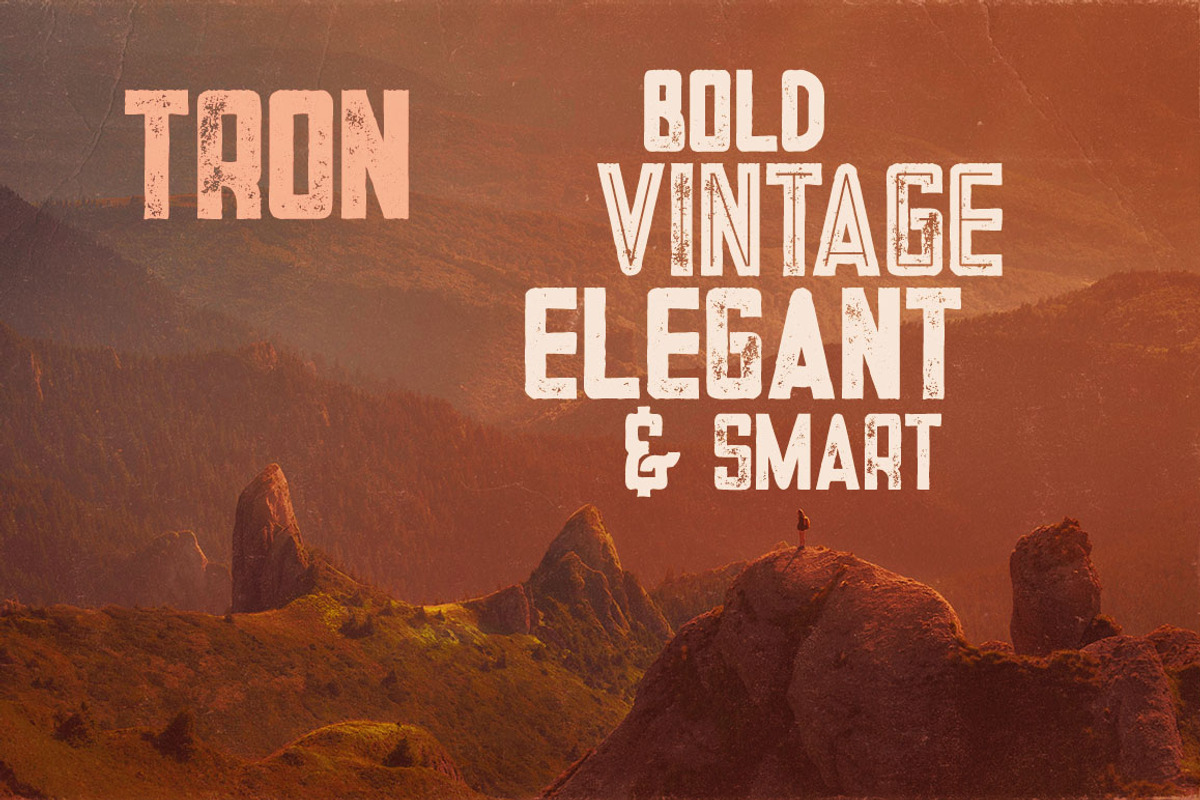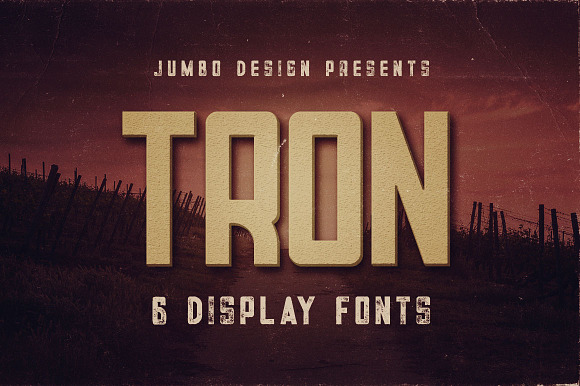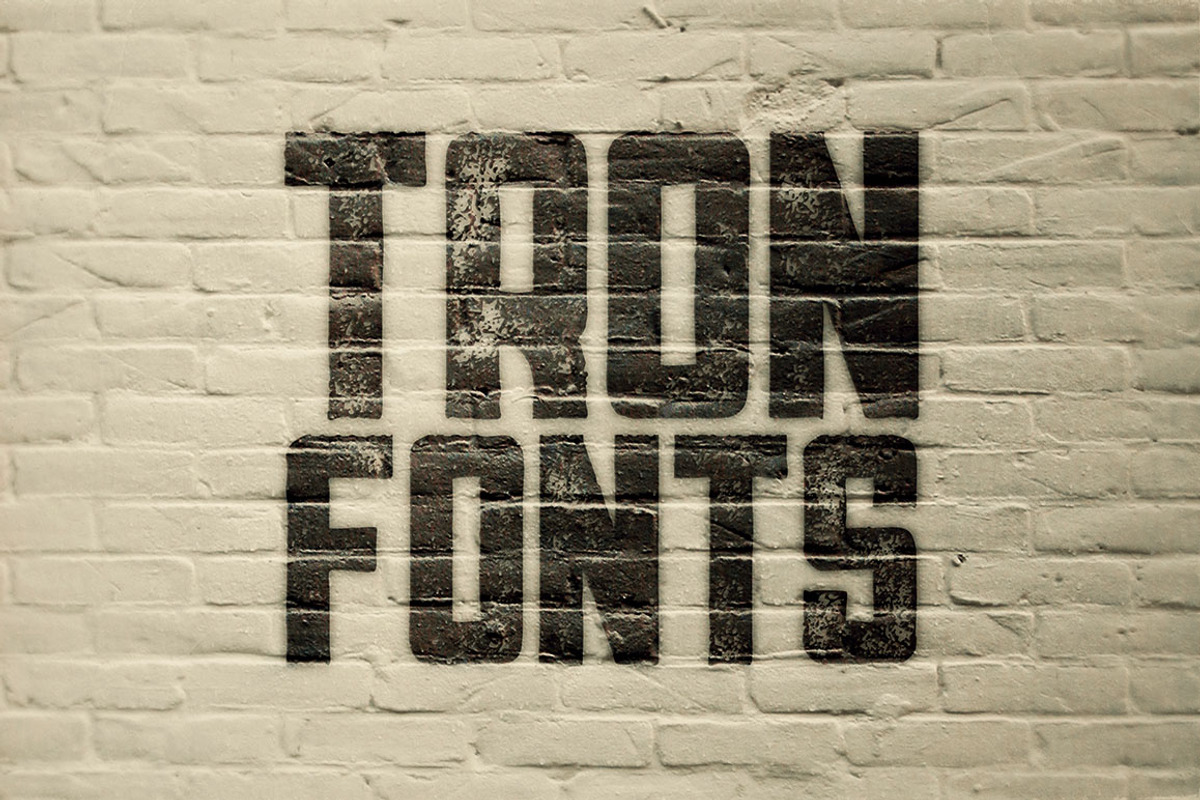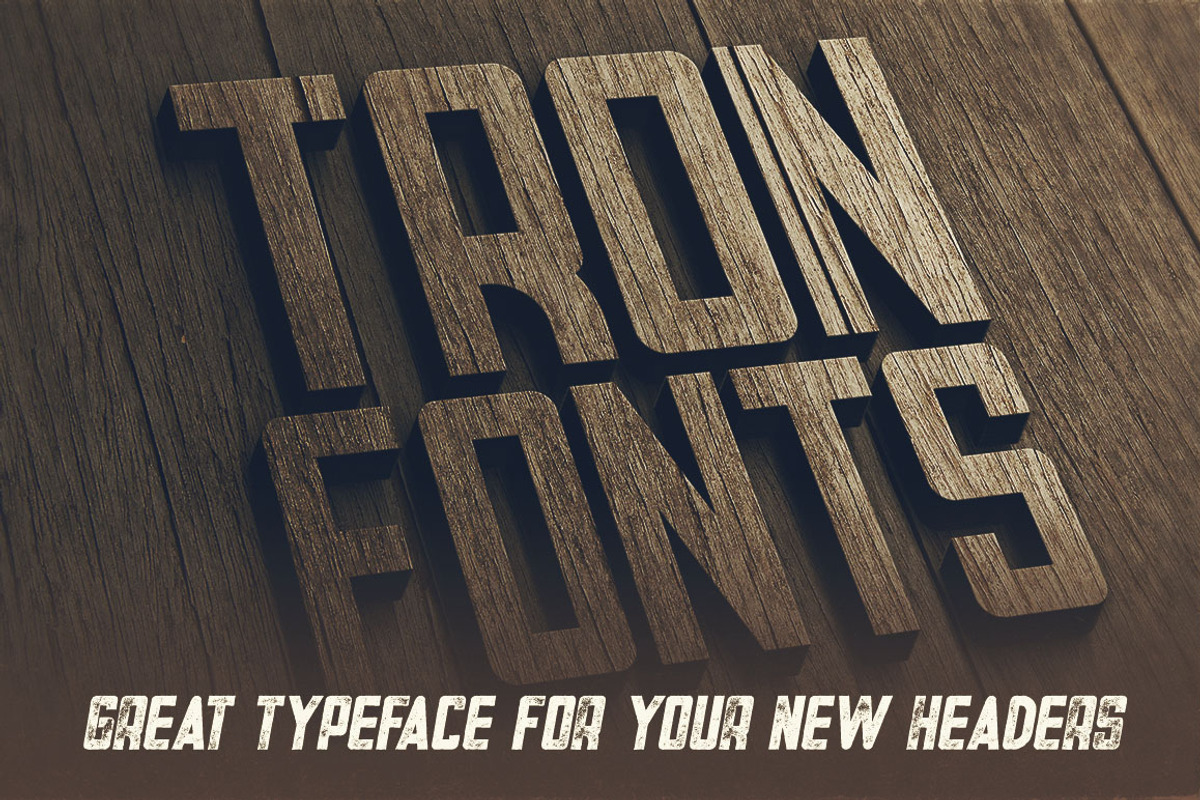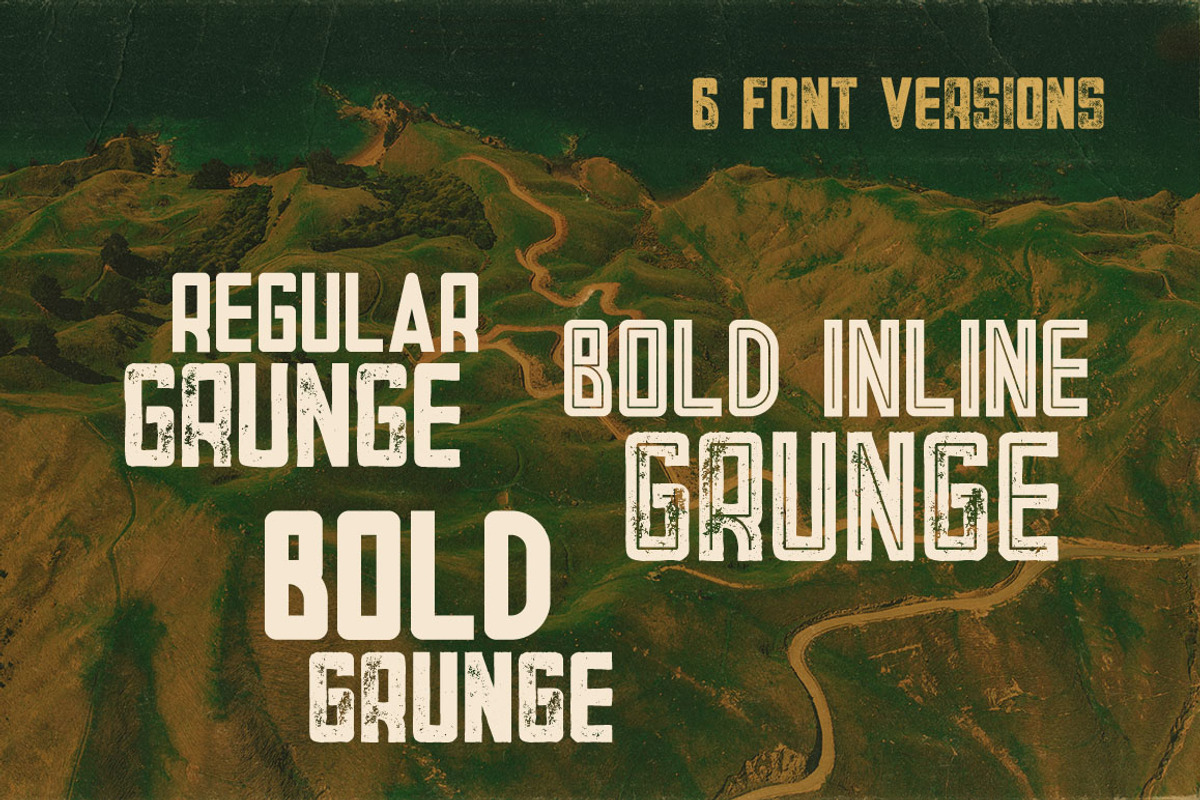
Tron - Display Font
Unique bold, retro or modern style custom font with 6 styles: regular and grunge, inline bold and inline bold grunge, bold & bold grunge!
Tron - Display Font by JumboDesign fits naturally into Branding, posters, packaging, typography.